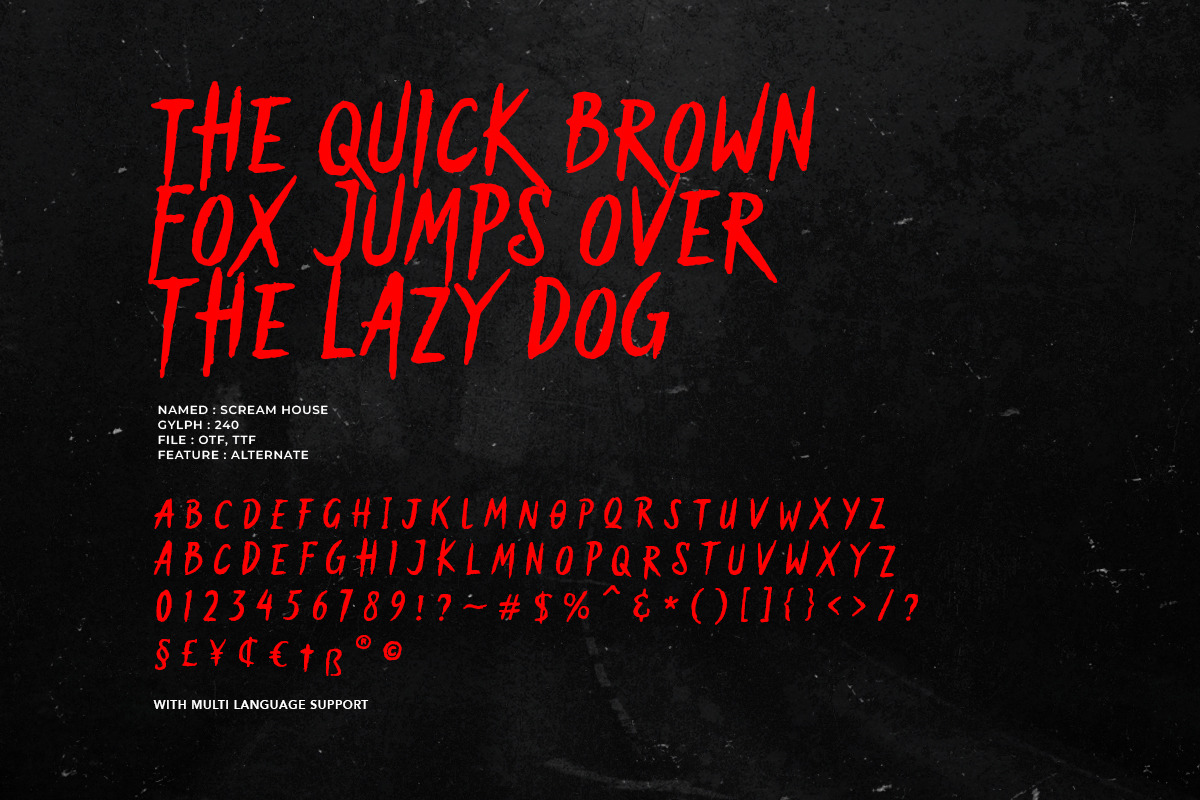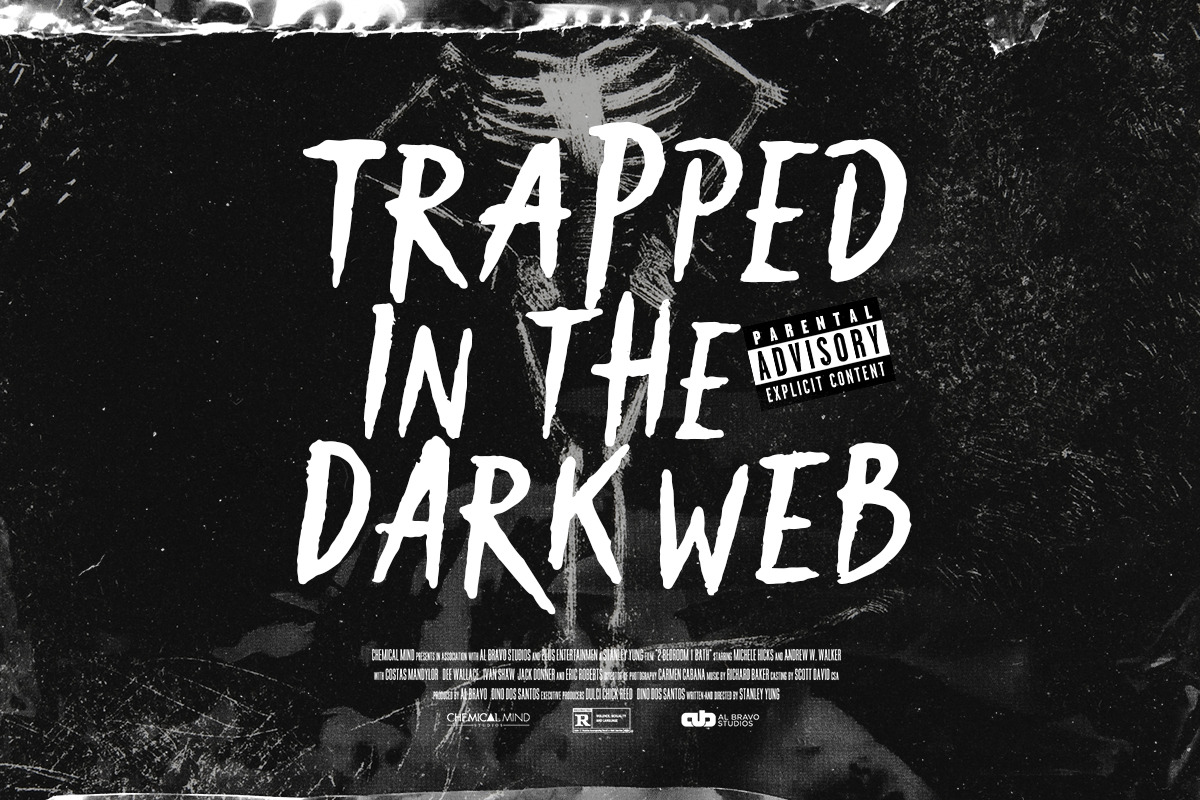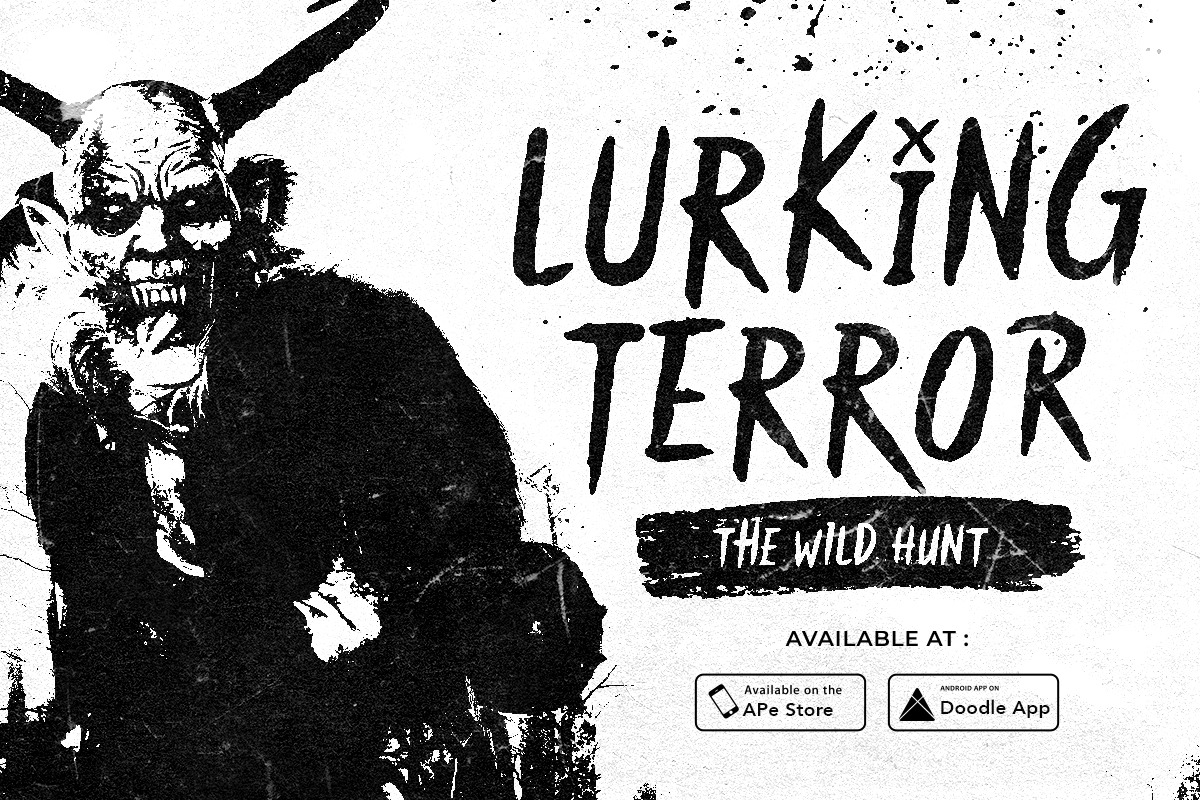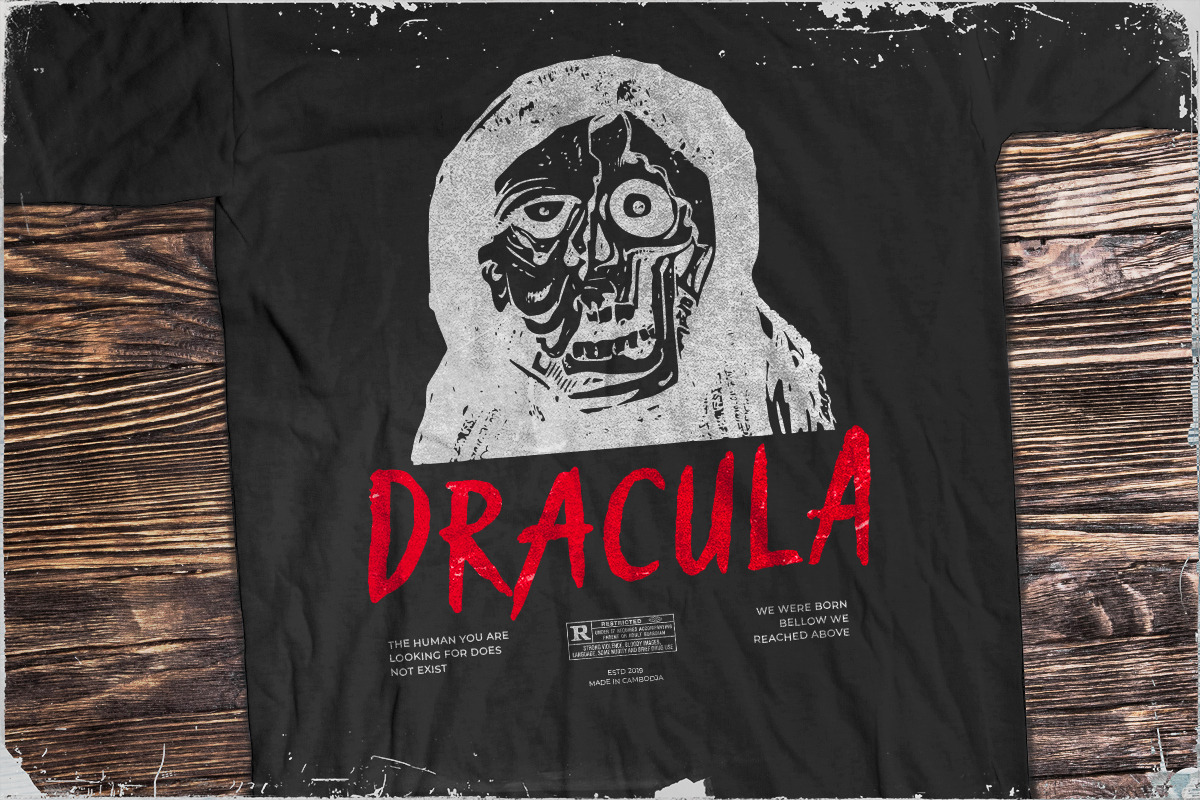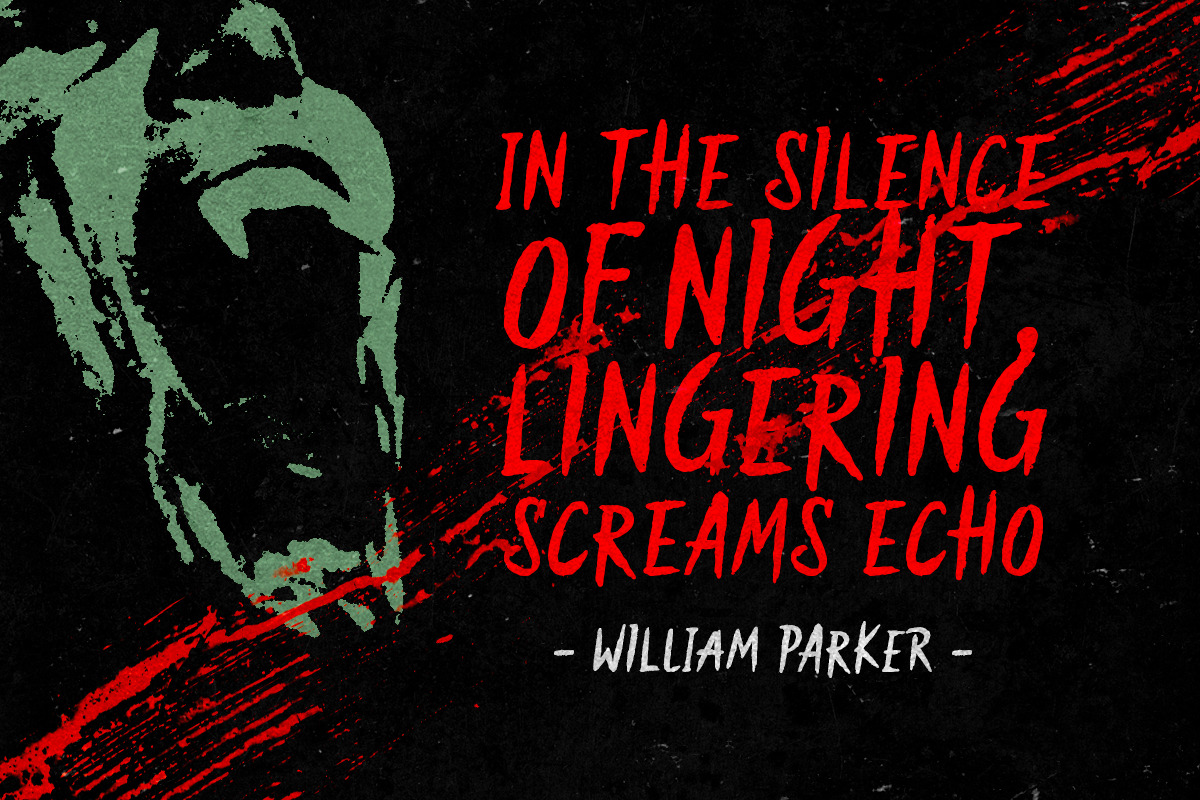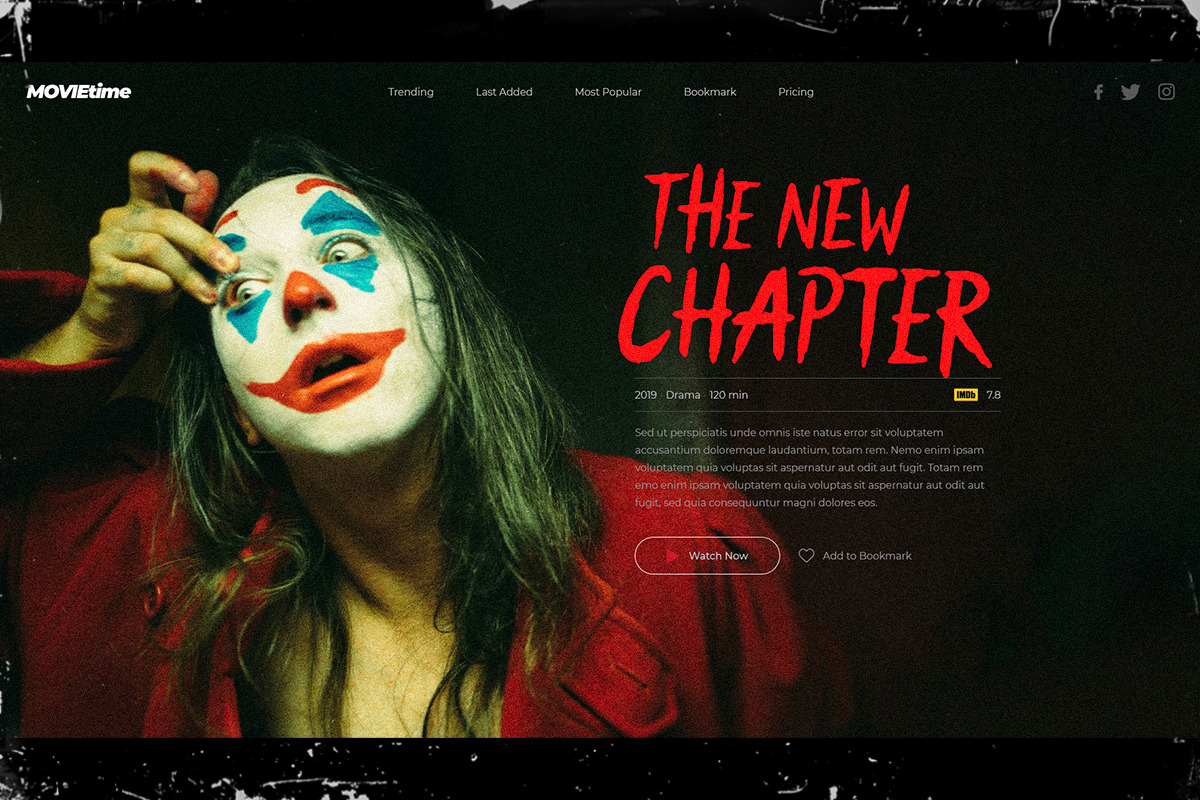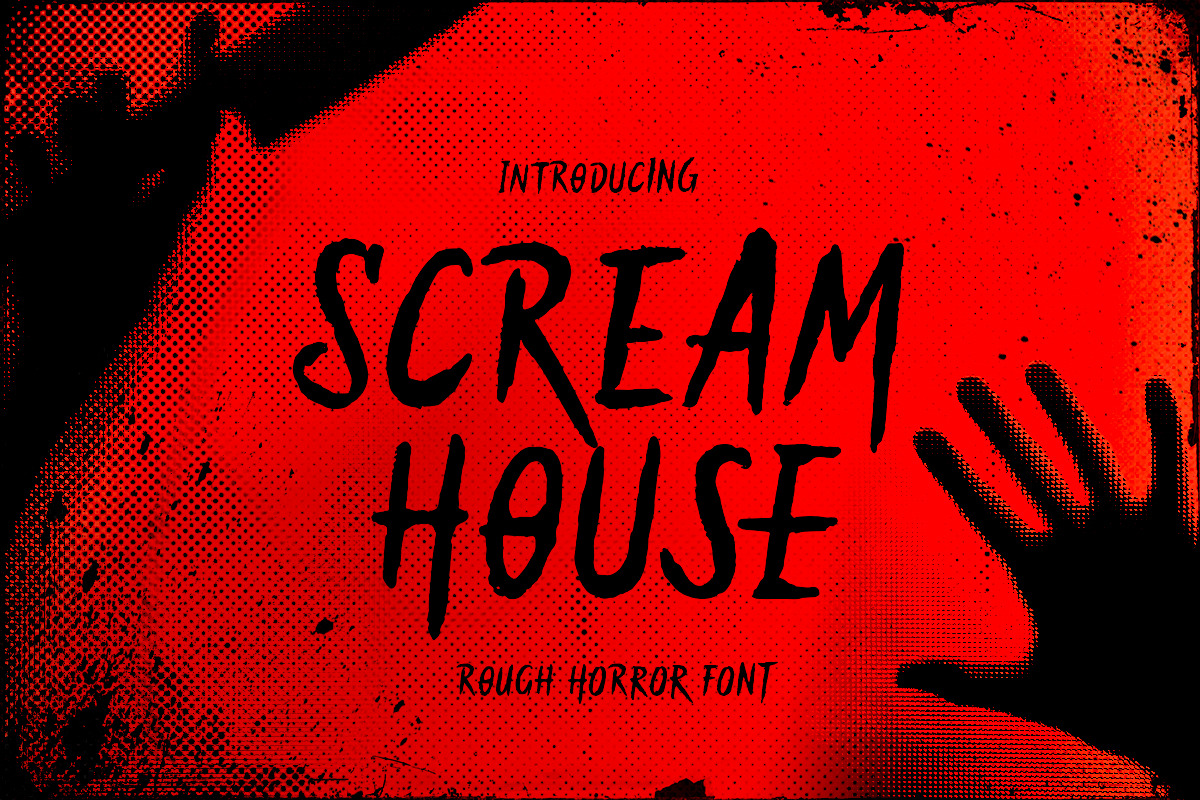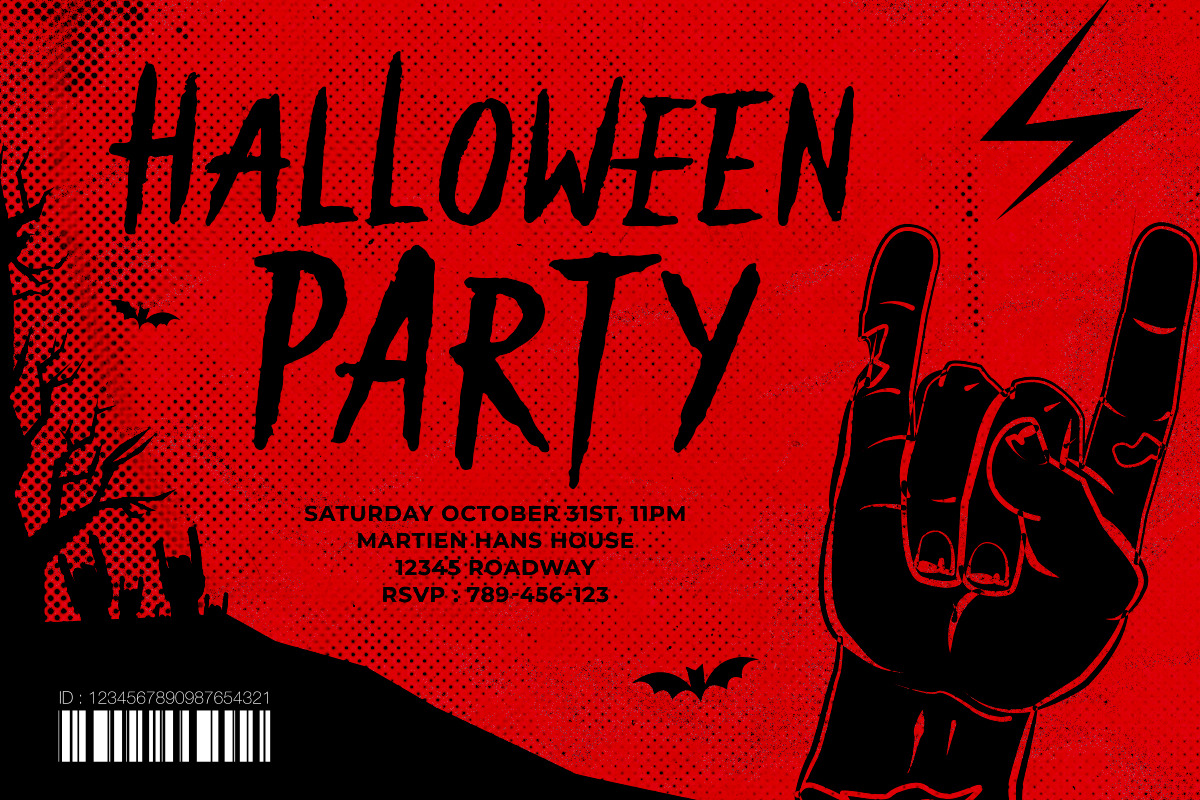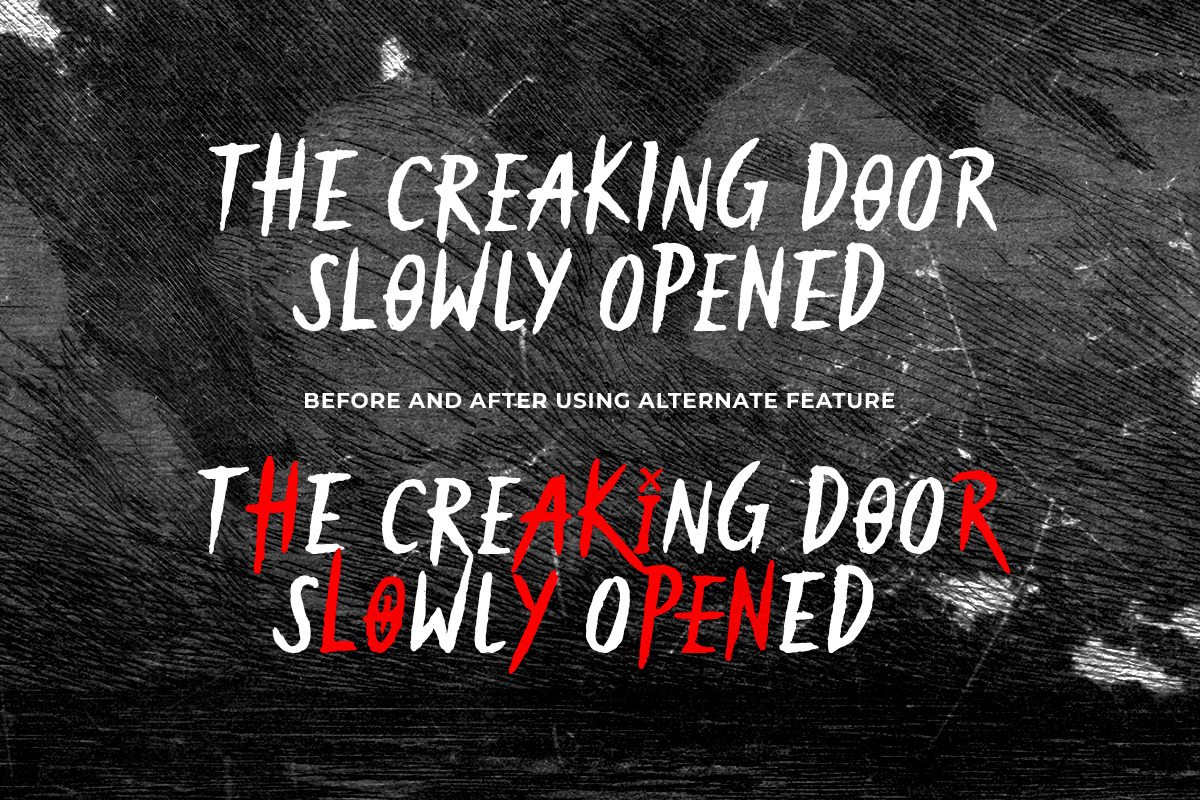
Scream House - Rough Horror Font
Scream House is a horror font based on handwritten font with alternates. With the rough edge, this font is suitable for your next project that needs scary look. Combine the uppercase and lowercase to get some stunning look, and use the alternates for the maximal use. You can use this font for any occasions such as movie poster, halloween project, book cover, and quotes. Not limited to horror project, you can also use this serif for your fancy and fun design. Scream House also support multi language.